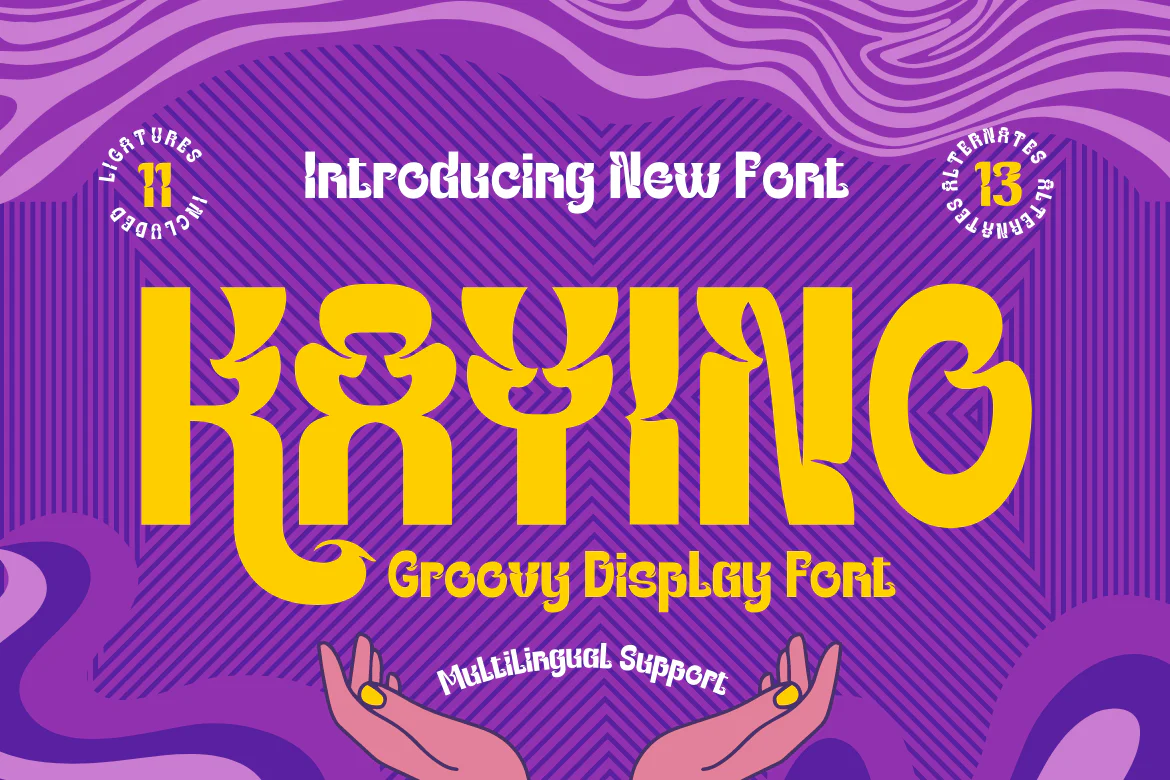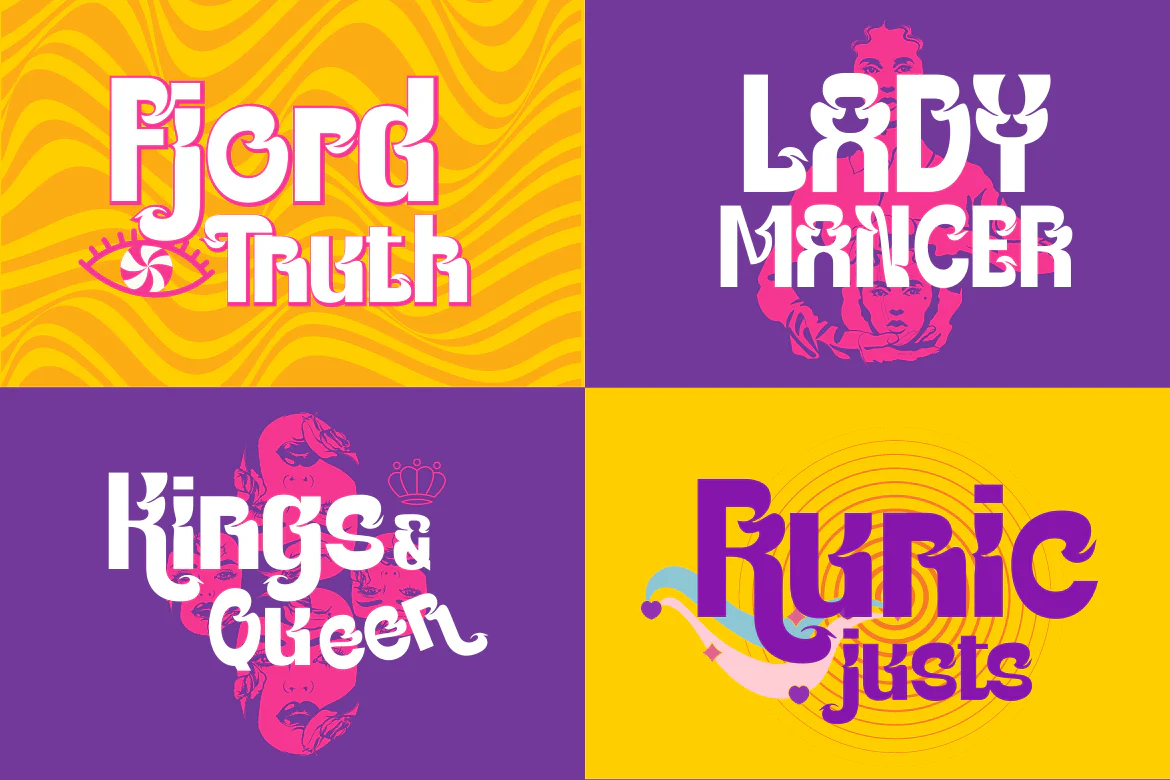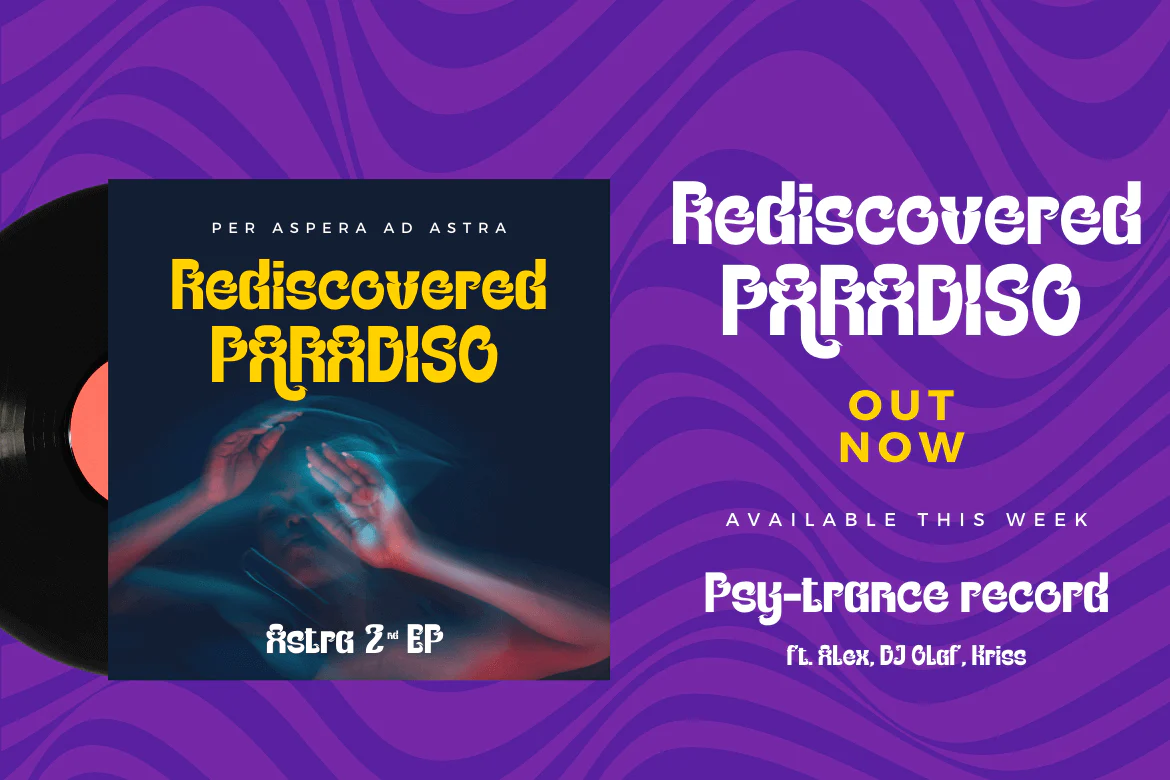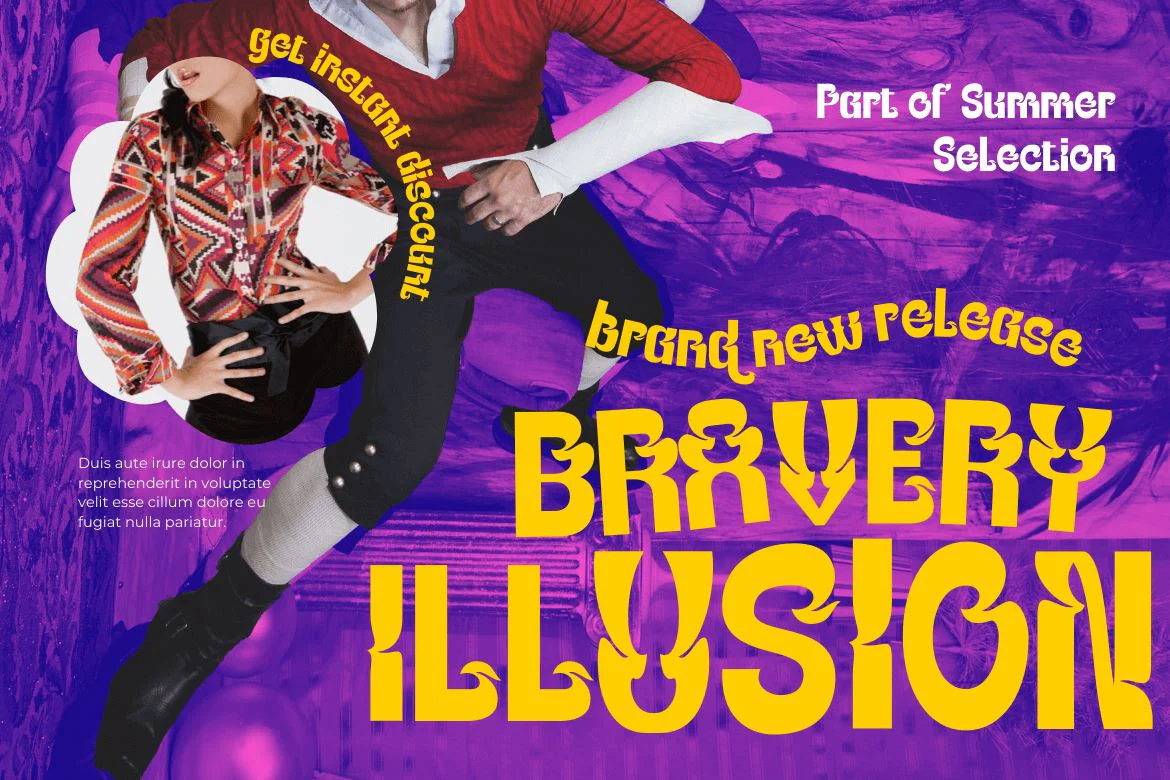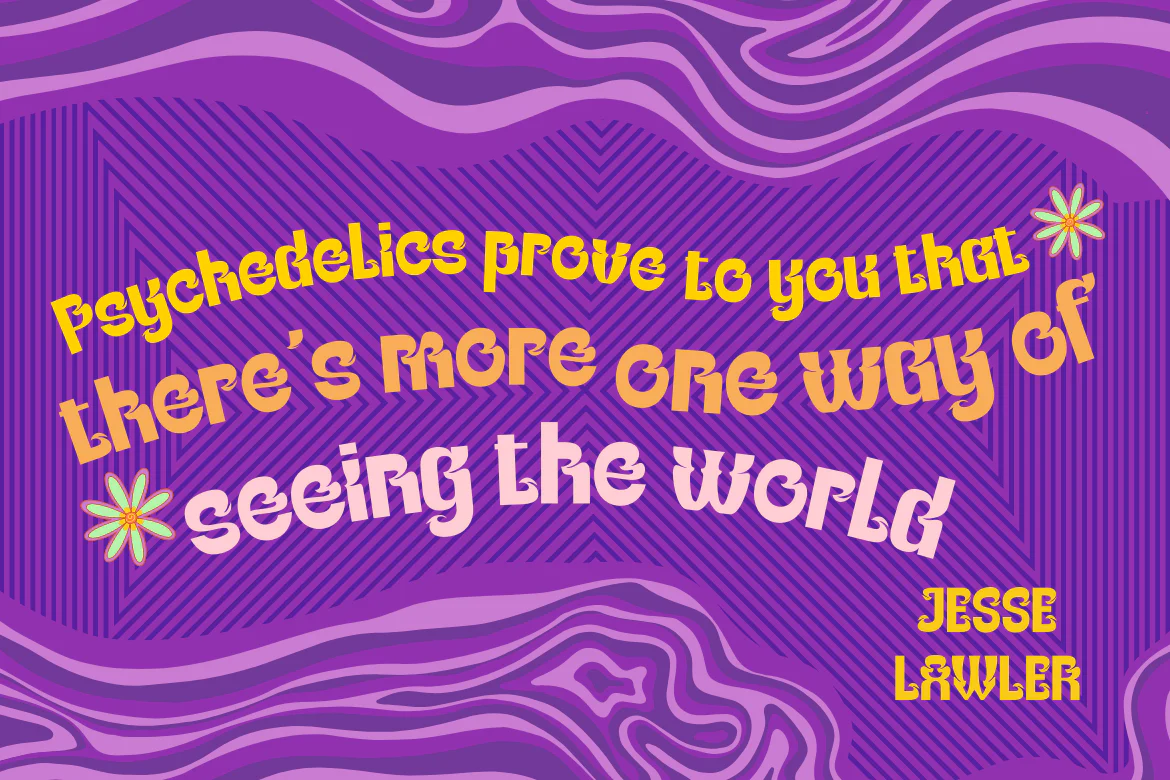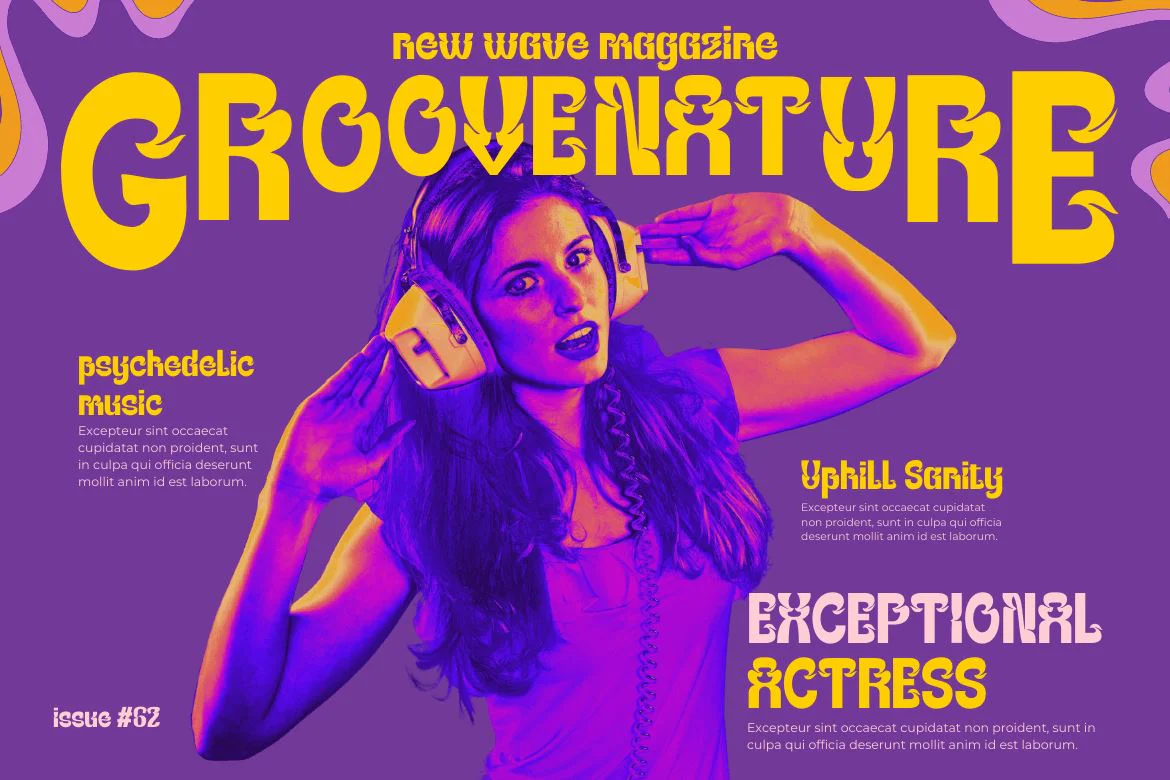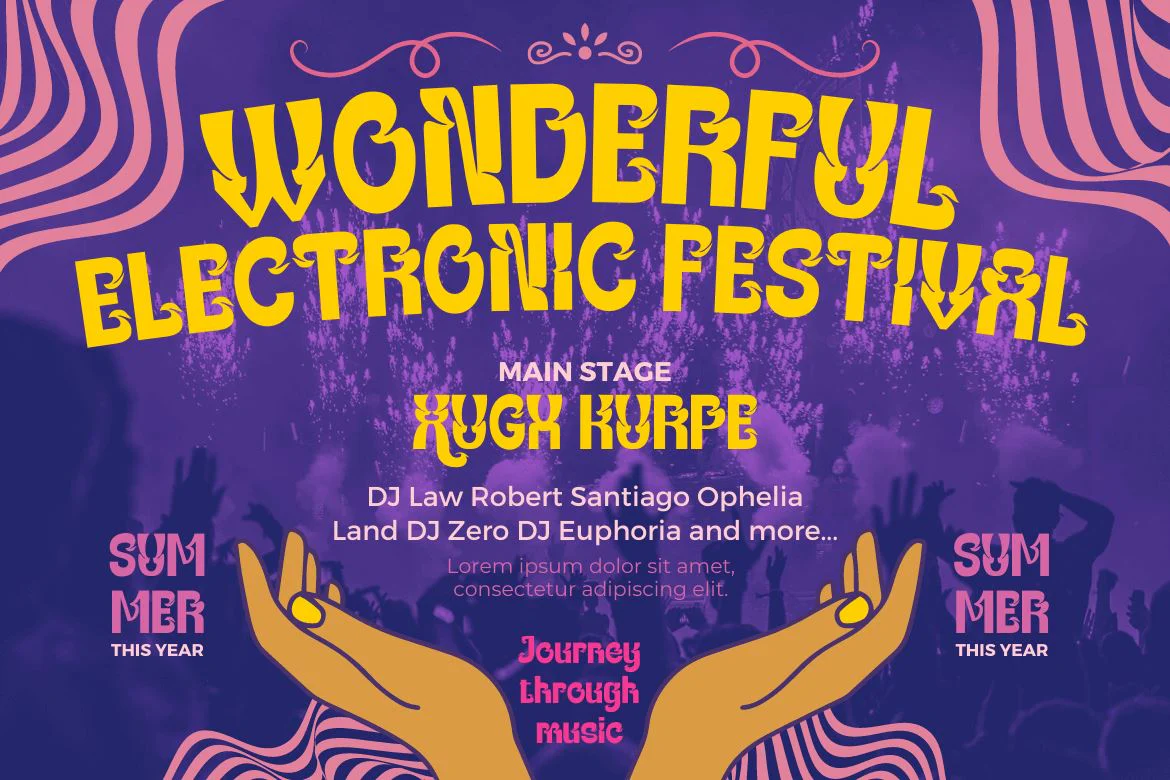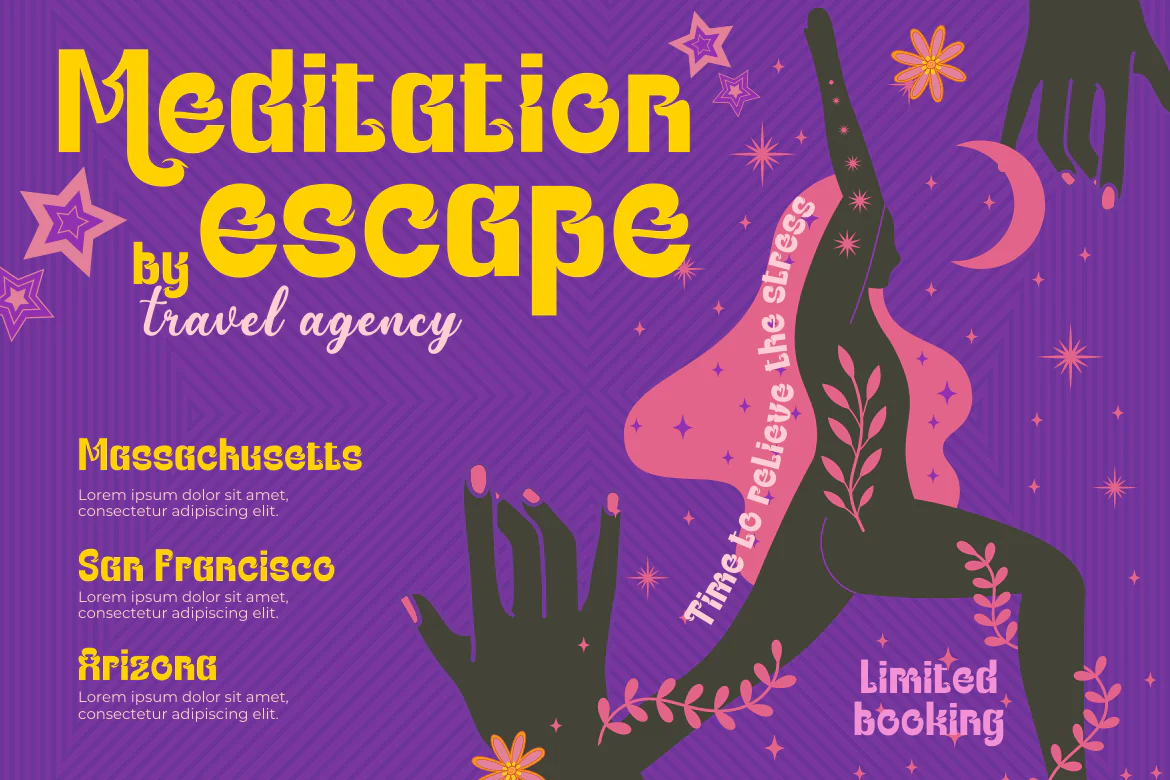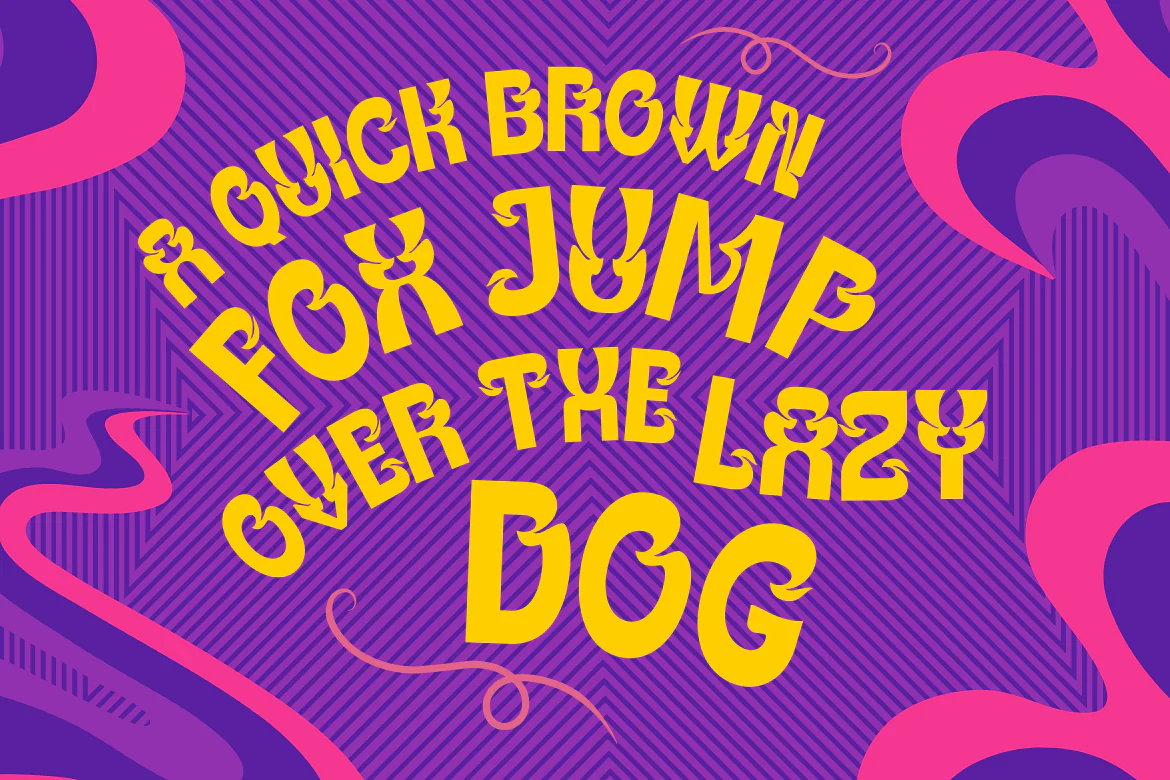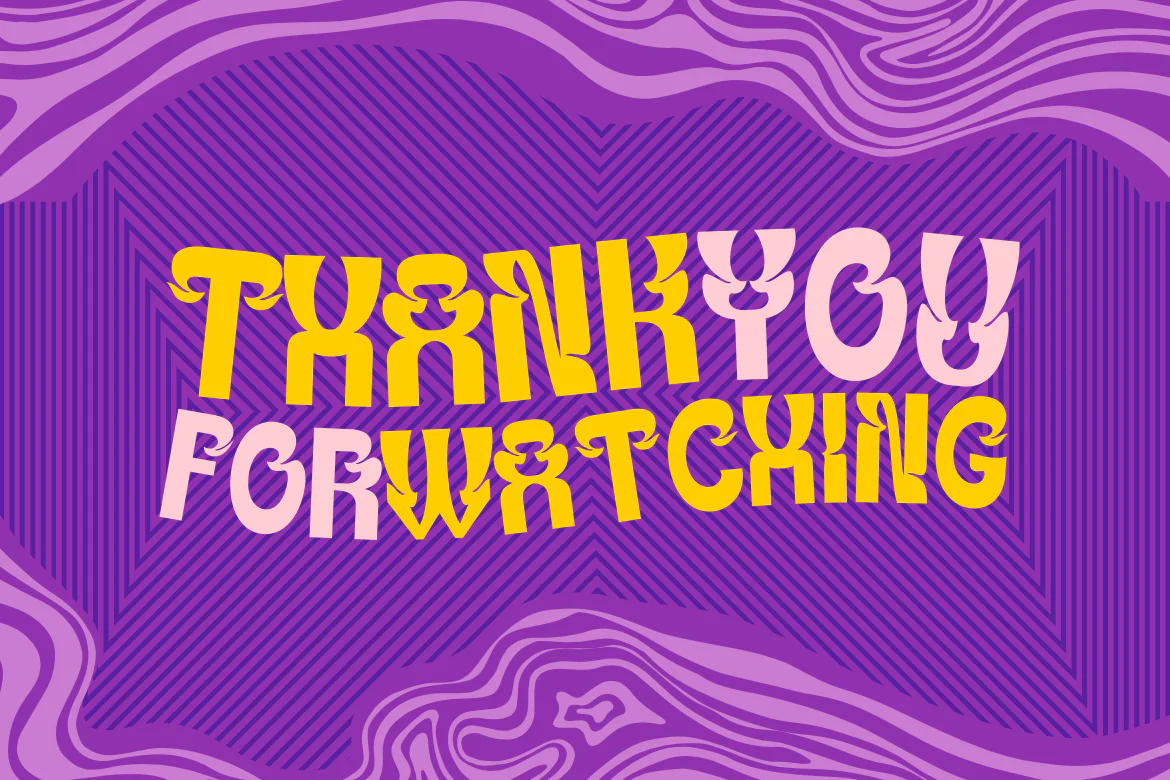
KAYINO | Groovy Retro Font
Let’s not be frightened of the asymmetrical Kayino font. The character of this Groovy Retro font is intriguing and enjoyable. If your project calls for enjoyment, proceed with care. The foundation of Kayino was classical but modern music.
A psychedelic-inspired look called Kayino was created using vintage objects and brash pop art typography from the 1960s. The fun and captivating character of the Groovy Retro font makes it the ideal option for designs like posters, banners, music, branding, logos, and more.